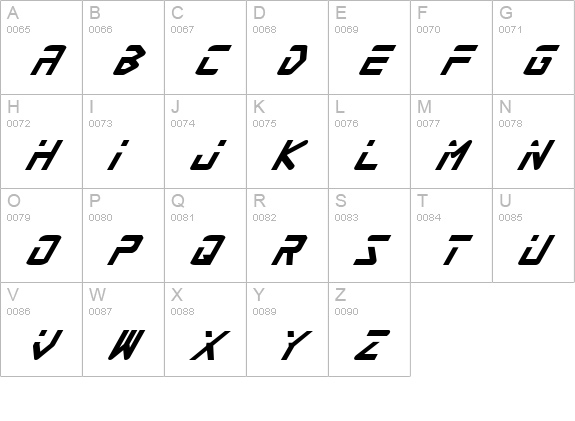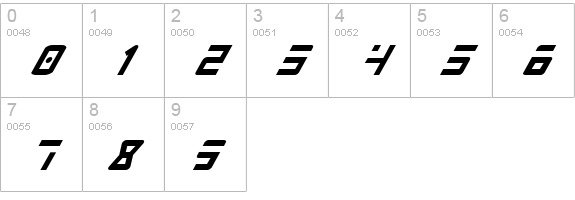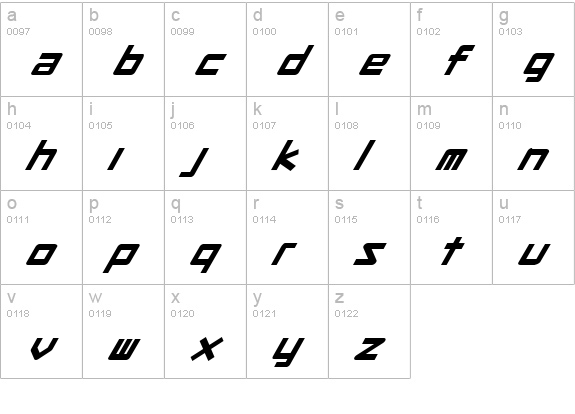
Procyon Super Italic is a distinctive, italic variant in the Procyon typeface family \xE2\x80\x94 well suited to design and typography projects.
Procyon Super Italic font is a sleek and modern typeface that exudes elegance and sophistication. With its unique, flowing italics and sharp, clean lines, this font is perfect for adding a touch of style to any design project. Whether you're creating a logo, invitation, or website, Procyon Super Italic font will make your text stand out and leave a lasting impression. What's even better is that this stunning font is available for free download at FontsMarket.com. That's right, you can elevate your designs with Procyon Super Italic font without spending a dime. So why wait? Head over to FontsMarket.com now and start using this fabulous font in your projects today!